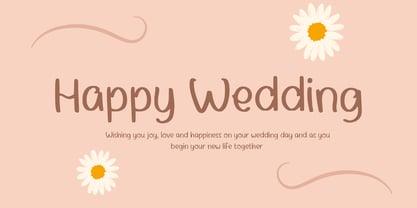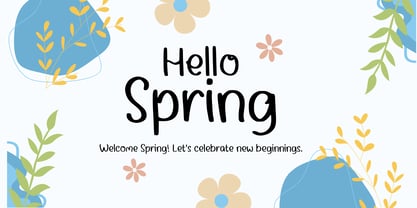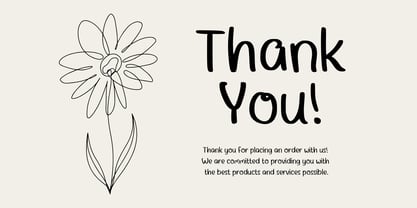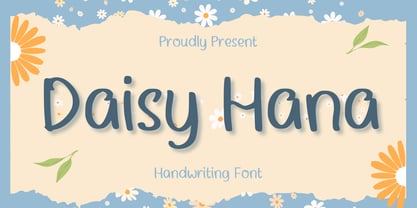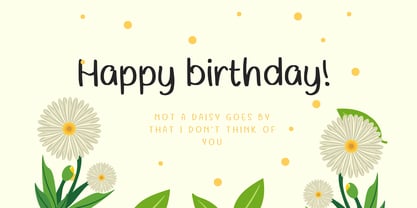
Daisy Hana
by Aisyah
The Daisy Hana Font Family was designed by Nur Aiysah Amalia and published by Aisyah. Daisy Hana contains 1 styles. More about this family
Immerse yourself in the effervescence of spring with Daisy Hana, a handcrafted font resplendent with the charm of the season. This aesthetic handwritten font adds an intimate, specialized touch to your greeting cards, gift tags and other celebratory events, effectively conveying your heartfelt emotions in every stroke. Daisy Hana is more than a mere text tool, it’s an artisanal journey capturing the unique spirit of spring and transporting it to your design canvas.
Designers: Nur Aiysah Amalia
Foundry: Aisyah